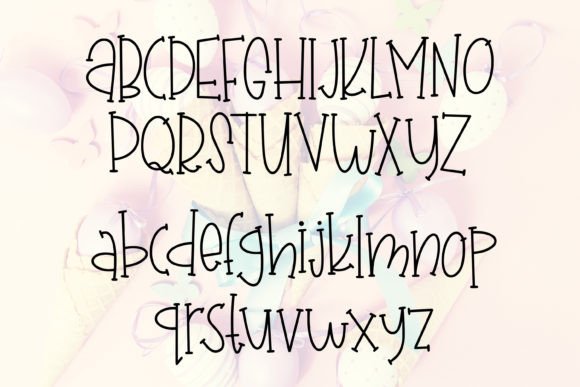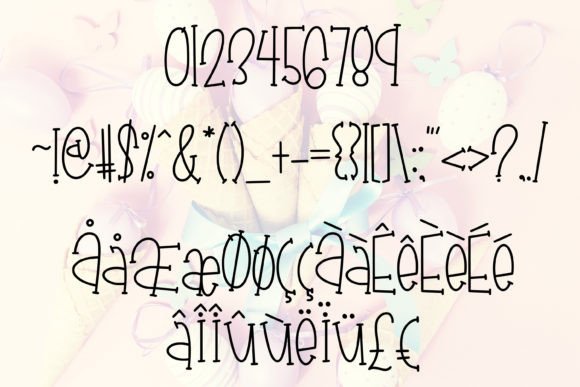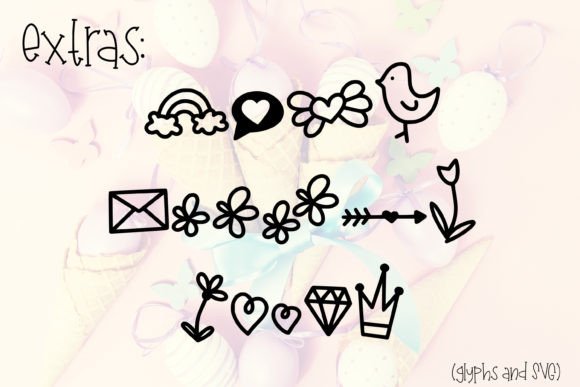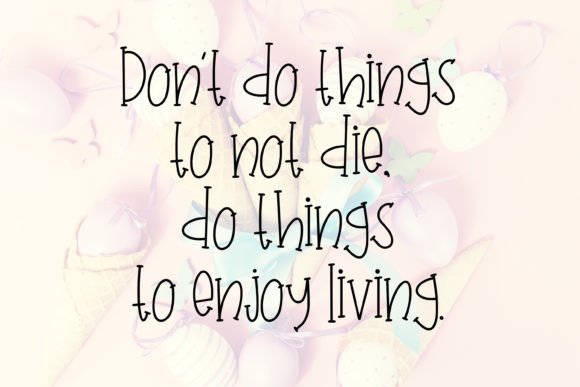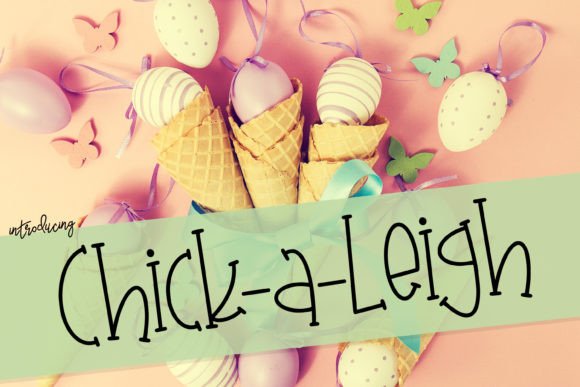
Introducing Chick-a-Leigh Font: Add a Playful Vibe to Your Designs
Are you tired of using the same old fonts in your designs? Look no further than Chick-a-Leigh, a whimsical and quirky handwritten font that’s perfect for adding a playful touch to your projects. With its tall, narrow letterforms and fun, slightly uneven strokes, this font brings a unique charm to everything from holiday cards to craft projects.
The Characteristics of Chick-a-Leigh Font
Chick-a-Leigh is a handwritten font that’s designed to bring a light-hearted and cheerful feel to your designs. Its tall, narrow letterforms give it a distinctive look that’s perfect for creating eye-catching headlines and titles. The font’s slightly uneven strokes add to its whimsical charm, giving it a handmade feel that’s perfect for crafty projects.
Perfect for Holiday Cards and Craft Projects
Chick-a-Leigh is a versatile font that can be used for a wide range of projects, from holiday cards to craft projects. Its playful vibe makes it perfect for creating fun and festive designs that are sure to delight. Whether you’re creating Christmas cards, Easter eggs, or Halloween decorations, Chick-a-Leigh is the perfect font to add a touch of whimsy to your designs.
Adding a Touch of Whimsy to Your Designs
Chick-a-Leigh is more than just a font – it’s a way to add a touch of personality to your designs. Its unique charm and playful vibe make it perfect for designers and crafters who want to create something truly special. Whether you’re creating a logo, a poster, or a social media graphic, Chick-a-Leigh is sure to bring a smile to your audience’s face.
Why Choose Chick-a-Leigh Font?
So why choose Chick-a-Leigh font for your next project? Here are just a few reasons why this font stands out:
- Unique and eye-catching: Chick-a-Leigh is a one-of-a-kind font that’s sure to grab attention.
- Playful and whimsical: This font is perfect for adding a touch of fun and personality to your designs.
- Versatile: Chick-a-Leigh can be used for a wide range of projects, from holiday cards to craft projects.
Tips for Using Chick-a-Leigh Font
Here are a few tips for getting the most out of Chick-a-Leigh font:
- Use it for headlines: Chick-a-Leigh is perfect for creating eye-catching headlines and titles.
- Pair it with other fonts: Try pairing Chick-a-Leigh with other fonts for a unique and interesting look.
- Experiment with colors: This font looks great in a wide range of colors, so don’t be afraid to experiment.
- Use it for craft projects: Chick-a-Leigh is perfect for craft projects, such as making cards, gift tags, and other DIY crafts.
If you’re looking for a font that will add a playful vibe to your designs, look no further than Chick-a-Leigh. This whimsical and quirky handwritten font is perfect for designers and crafters who want to create something truly special. With its unique charm and versatility, Chick-a-Leigh is sure to become a favorite in your font collection.